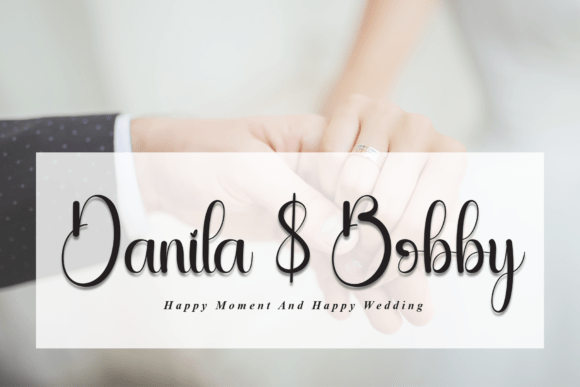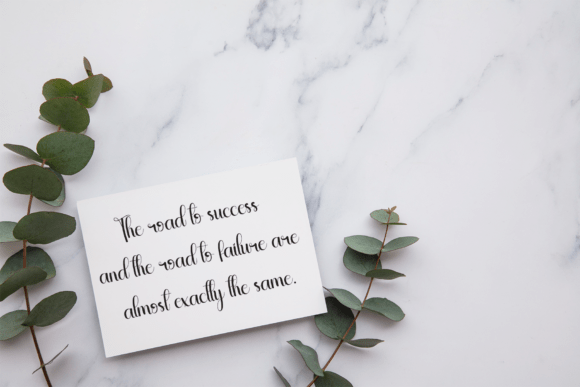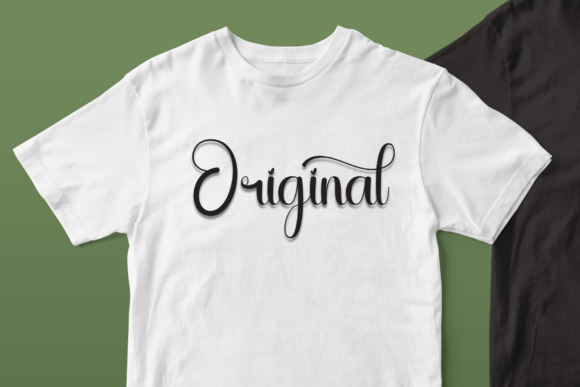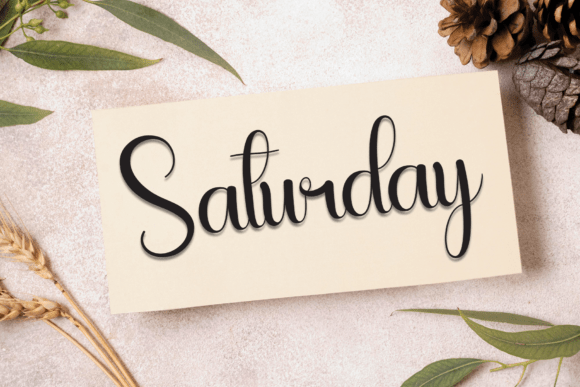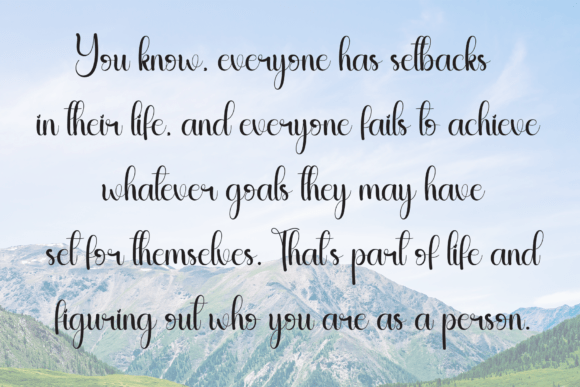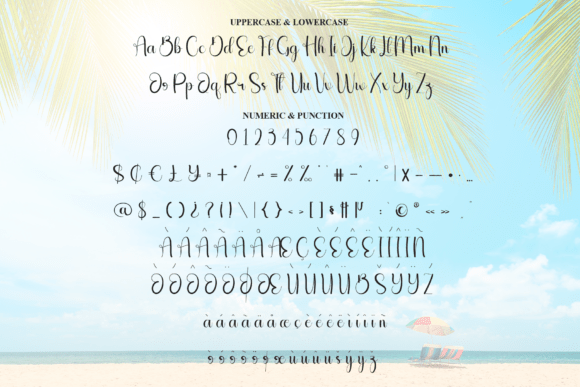
The Perfect Beachside Design
Have you ever found yourself gazing out at the ocean, feeling inspired by the gentle waves and soothing sounds of the sea? That’s exactly where the creative spark struck for the designers who crafted the Beach Font. This stylish handwritten script font is the epitome of modern elegance with a playful twist, making it the perfect addition to any design project.
Whether you’re creating a logo, packaging, or invitation, Beach Font adds a personal touch with its fluid strokes and charming curves. It’s the perfect way to bring warmth, sophistication, and creativity to your work. As a designer, you know how valuable it is to have a versatile font that can elevate your projects and make them truly stand out. With Beach Font, you’ll be able to create designs that feel both professional and approachable.
Key Features of Beach Font
- Font Family: A unique, handwritten font designed to evoke a sense of beachy relaxation.
- Unique Characteristics: Features a playful, cursive script with a relaxed, beach-inspired feel, making it perfect for summer-themed designs, invitations, and promotional materials.
- Font Style: Offers a variety of font styles, including regular, bold, italic, and bold italic, providing flexibility for designers to create visually appealing compositions.
Beach Font Review
As a designer, I recently had the chance to work with “Beach Font” and I must say it’s a mixed bag. Let’s dive into what works and what doesn’t.
- The font is incredibly versatile and can be used for a wide range of applications, from logos to body text.
- The unique, hand-drawn feel gives it a charming and personal touch that’s perfect for creative projects.
- The font is highly customizable, with a range of weights and styles to choose from.
- The font can be a bit too playful for more formal or professional projects.
- The characters can be a bit too spaced out, which can affect readability in certain contexts.
- The font may not be the best choice for projects that require a lot of small text, as it can be difficult to read at smaller sizes.
Overall, I think “Beach Font” is a great addition to any designer’s toolkit. While it may not be the best choice for every project, it’s a versatile and charming font that’s perfect for creative and personal projects. With a little careful consideration, it can be a real game-changer.
To get the most out of Beach Font, use it for:
- Summer-themed projects, such as beach party invitations or tropical vacation brochures.
- Water-inspired designs, such as ocean-themed posters or aquarium graphics.
- Casual, laid-back branding, such as surf shop logos or beachwear labels.
For optimal results, pair Beach Font with bright, pastel colors and playful graphics.
Alternatives to “Beach Font” for Designers
Pacifico is a beautiful, elegant script font perfect for adding a touch of sophistication to your designs. It’s ideal for use in branding, advertising, and editorial content. Compared to Beach Font, Pacifico has a more refined and polished look, making it suitable for formal and upscale projects.
Great Vibes is a fun and playful script font that’s perfect for capturing a carefree, beachy vibe. It’s great for use in social media, blog posts, and other casual content. While it shares some similarities with Beach Font, Great Vibes has a more relaxed and casual feel, making it perfect for lighthearted and humorous projects.
Dancing Script is a lively and energetic script font that’s perfect for adding a touch of whimsy to your designs. It’s ideal for use in event invitations, party decorations, and other celebratory content. Compared to Beach Font, Dancing Script has a more dynamic and playful feel, making it perfect for projects that need to convey excitement and energy.